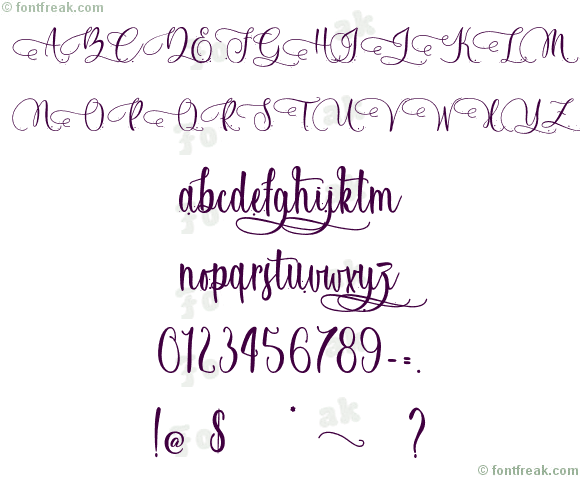
Xanthousy - Personal Use
About Xanthousy - Personal Use
Xanthousy - Personal Use is a captivating script font created by Suthi Srisopha, perfectly suited for personal projects. This font falls into the script category, characterized by its elegant, flowing strokes that exude a sense of warmth and creativity. The visual features of Xanthousy include a moderate stroke weight with graceful curves that give it a whimsical flair. The contrast between thick and thin strokes adds depth, while the generous spacing between letters ensures readability, making it ideal for various applications.
This font is particularly well-suited for wedding invitations, where its romantic style can enhance the overall aesthetic. Additionally, it works beautifully for greeting cards, allowing creators to convey heartfelt messages with a personal touch. Graphic designers can also utilize Xanthousy for branding projects, such as logos or product packaging, where a distinctive and memorable typeface is essential. Furthermore, it can add a unique charm to restaurant menus, helping to create an inviting atmosphere for diners.
The target audience for Xanthousy includes graphic designers, small business owners, and content creators who seek to elevate their projects with a touch of elegance. Its unique style can help brands express their identity and connect with their audience on a personal level.
What sets Xanthousy apart is its ability to blend sophistication with a playful spirit, making it a versatile choice for a range of creative endeavors. Whether you are crafting a heartfelt invitation or designing a logo that stands out, the Xanthousy - Personal Use font free download offers an opportunity to infuse your work with a distinct personality. Embrace the charm of this font and let your creativity flow.